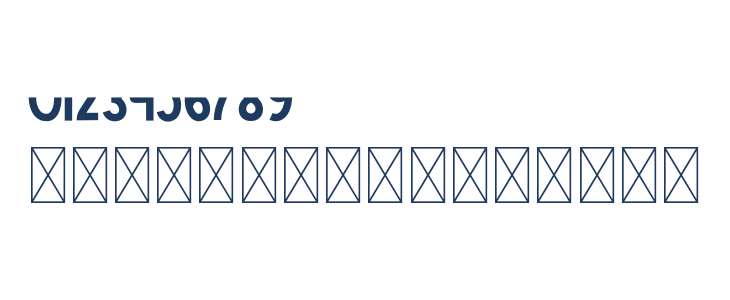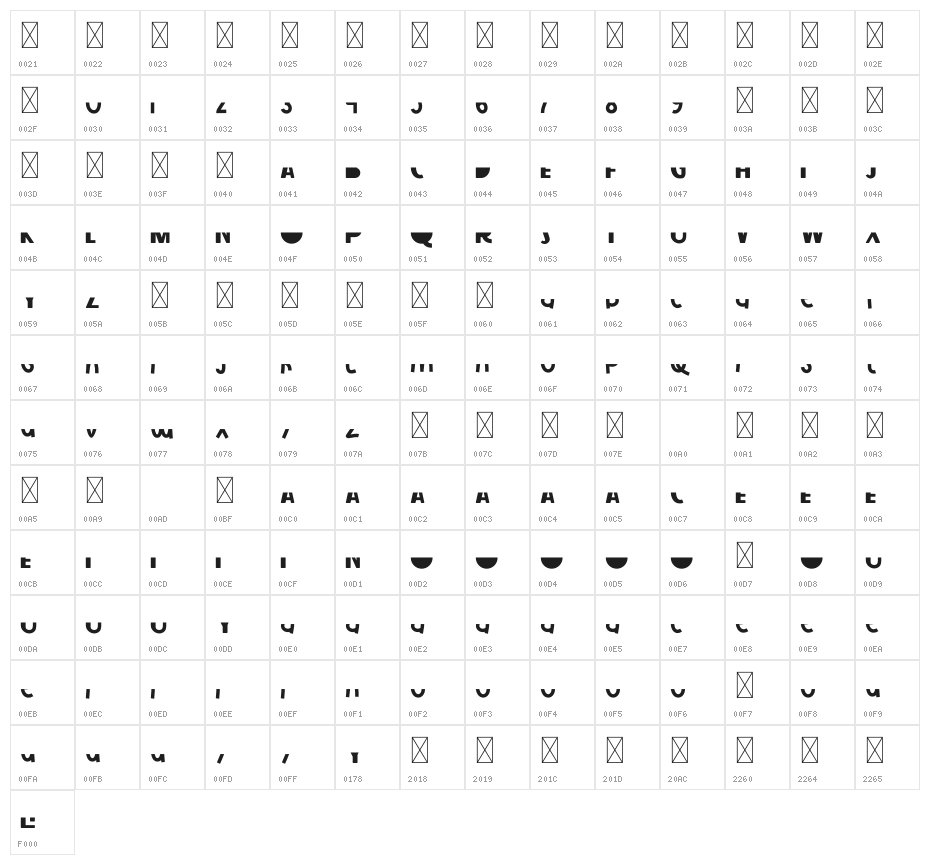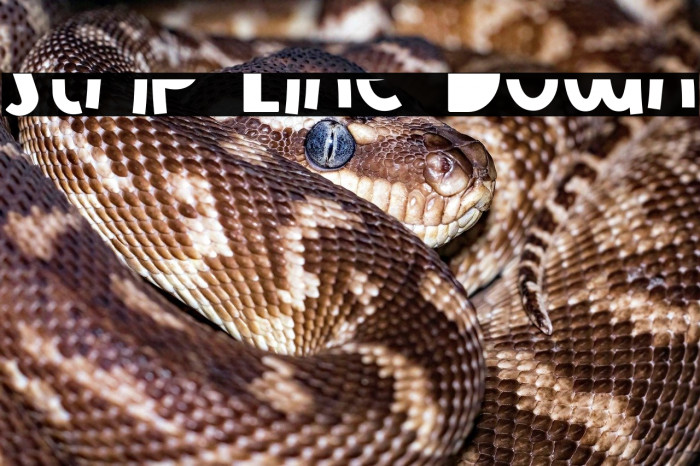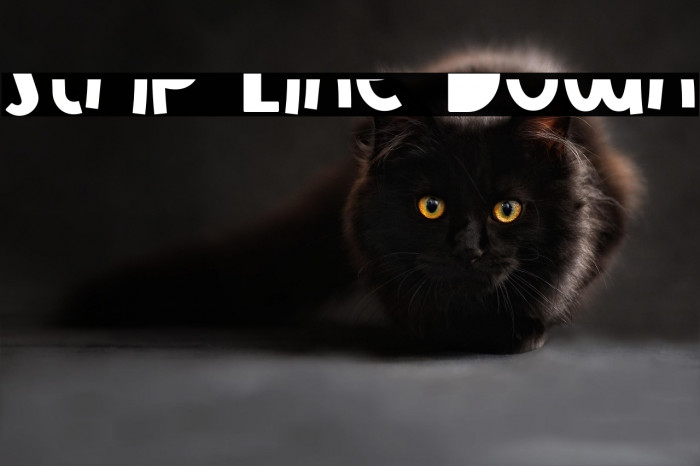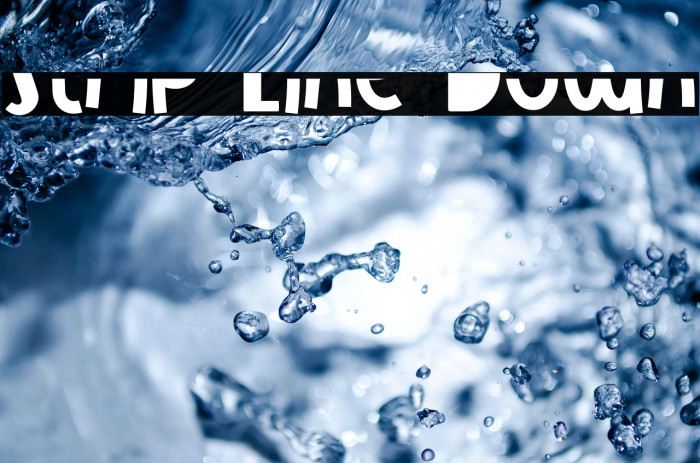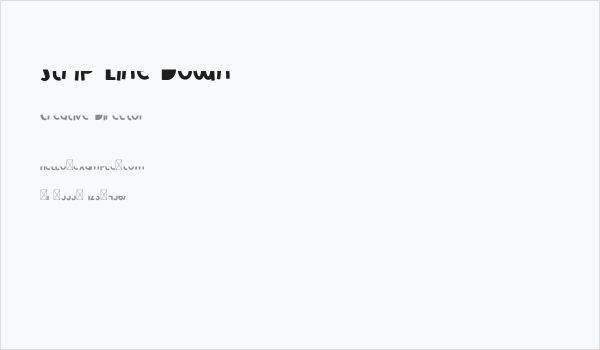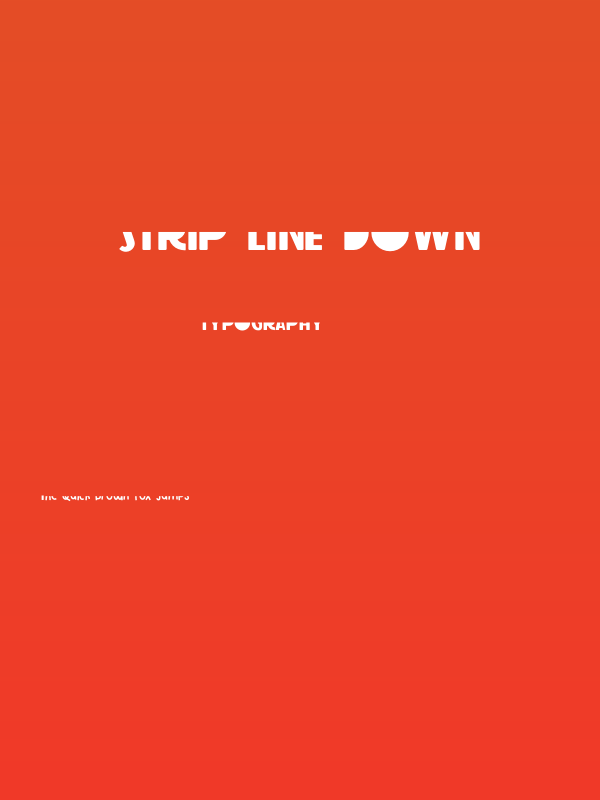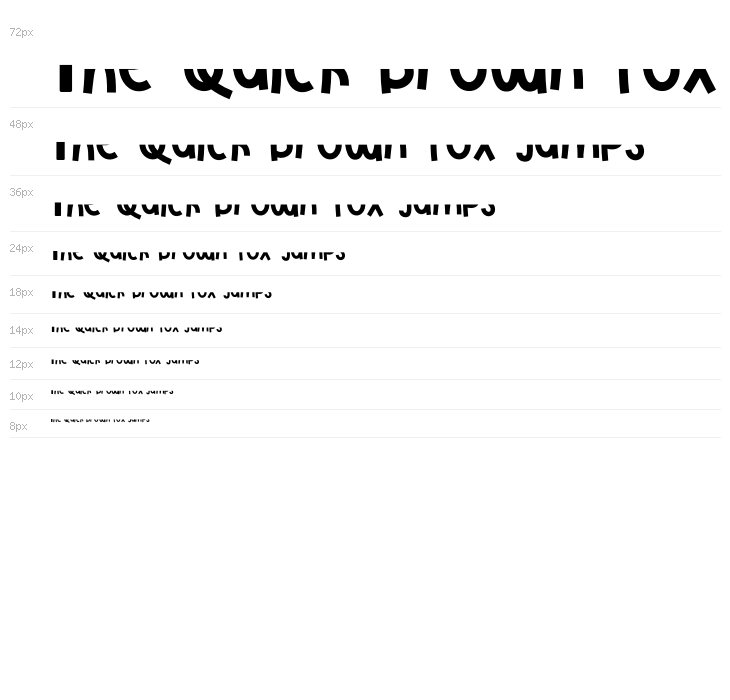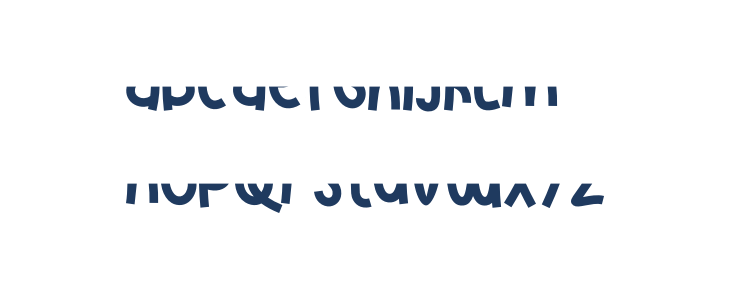
Strip Line Down Font
Strip Line Down Description
This font features a bold and striking design with a unique cut-out style that creates a sense of movement and modernity. The uppercase letters are particularly distinctive, with geometric shapes and sharp angles that give them a futuristic feel. The lowercase letters maintain the same boldness, ensuring consistency across the typeface. Numbers are equally bold, with a similar geometric influence. The font's special characters are designed to match the overall aesthetic, making it suitable for creative and attention-grabbing projects.
| Proposed Projects | Ideal for branding, posters, headlines, and any design requiring a modern, eye-catching typeface. |